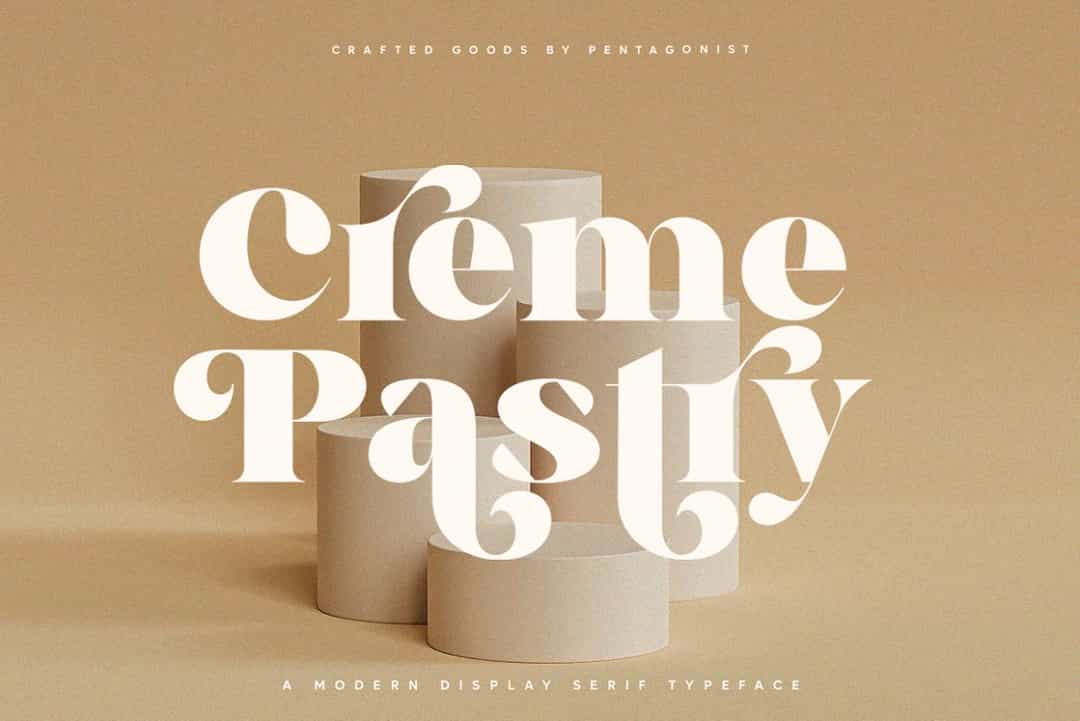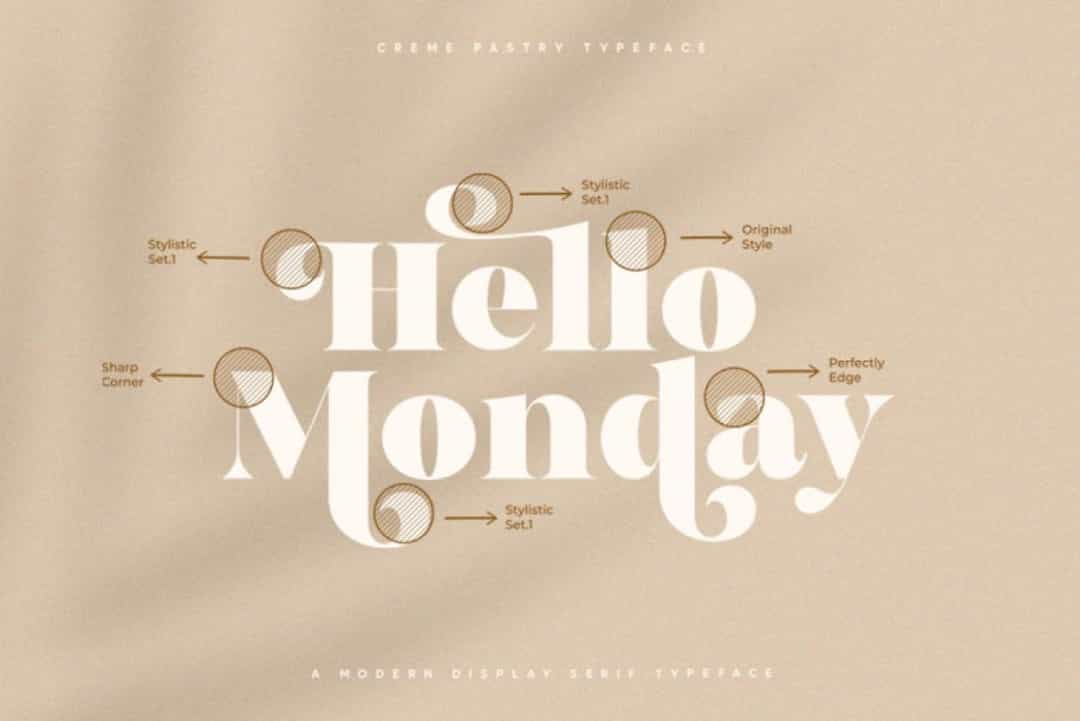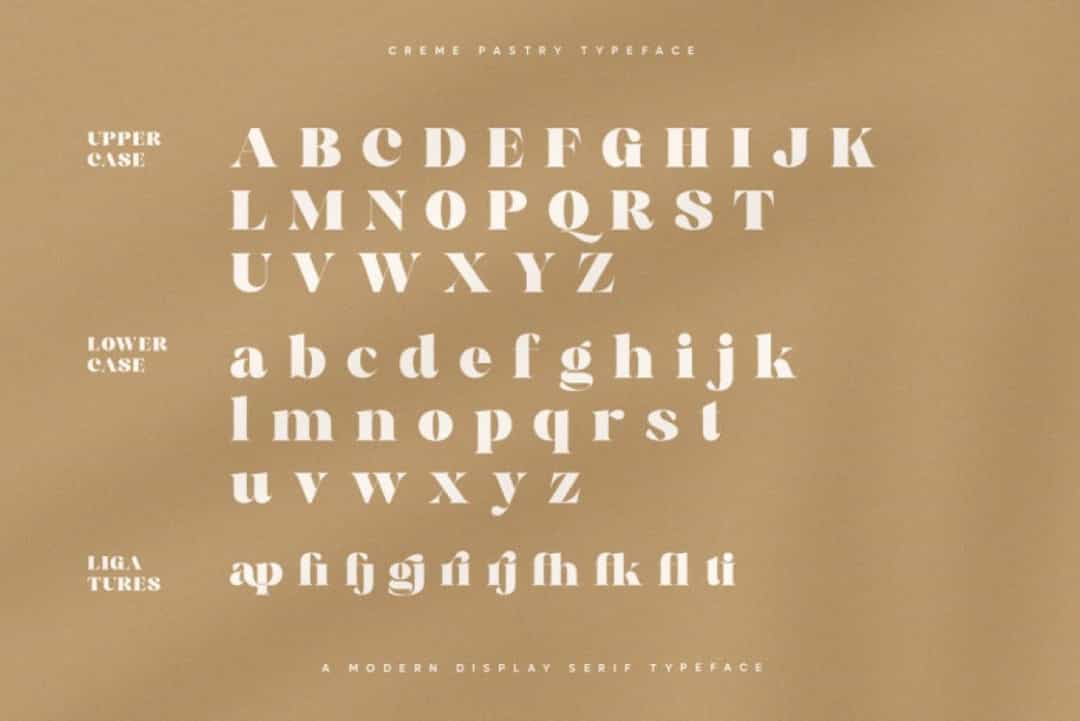
Creme Pastry is an elegant display serif font that exudes charm. Perfectly tailored to create high-end feminine designs, this font will help create contemporary yet fashionable graphics.